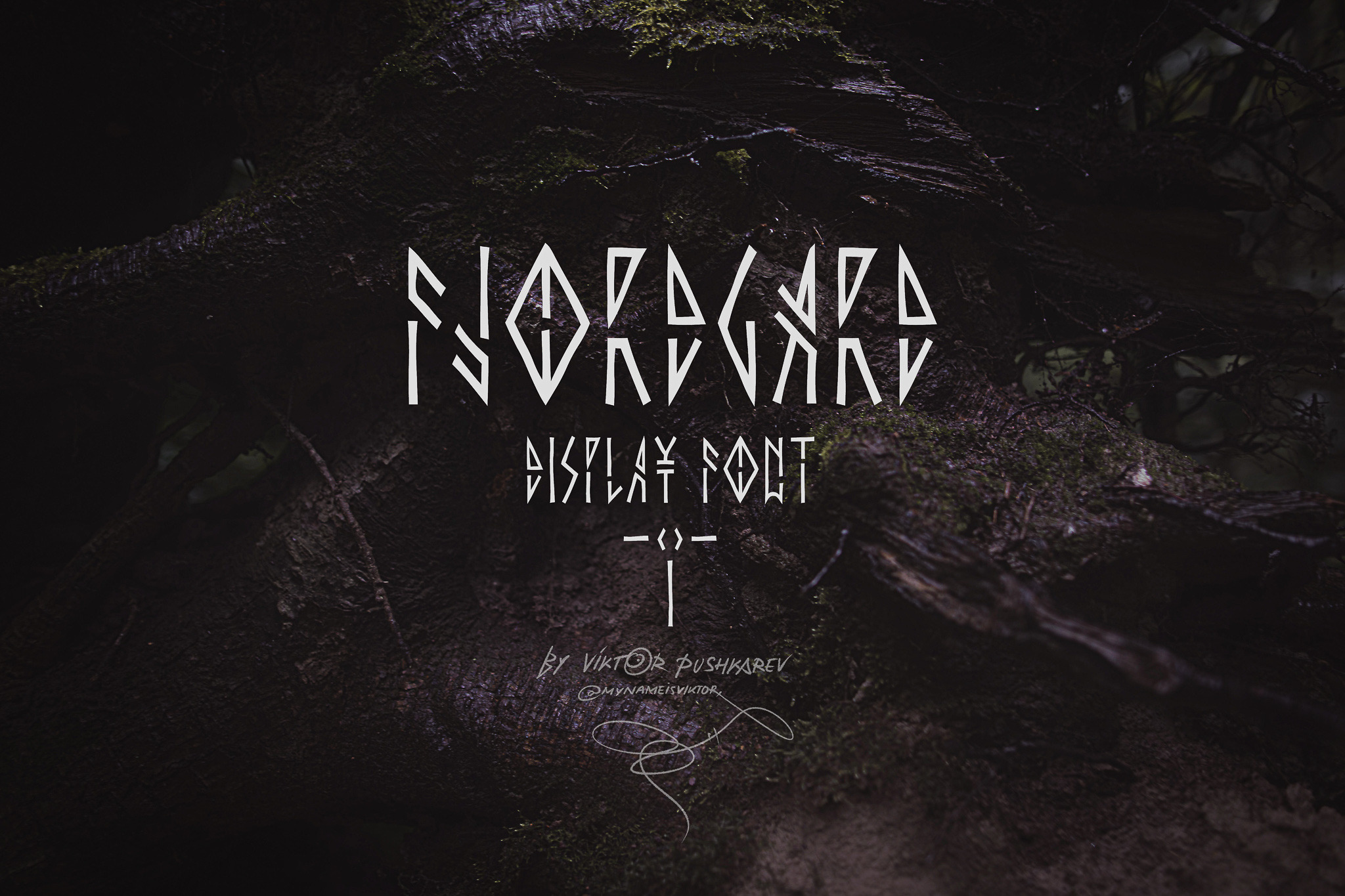
Fjordgard - Runic Display Font
Fjordgard is a display font that resembles some of the Nordic runes aesthetics whilst staying as close as possible to modern and legible letter shapes.
This font is upper case only, but it still has a lot to offer: big variety of alternative shapes, numbers, symbols and wide language support.
The usage of this font is limited to only designer's imagination, but I see it mostly used in package and tattoo design.